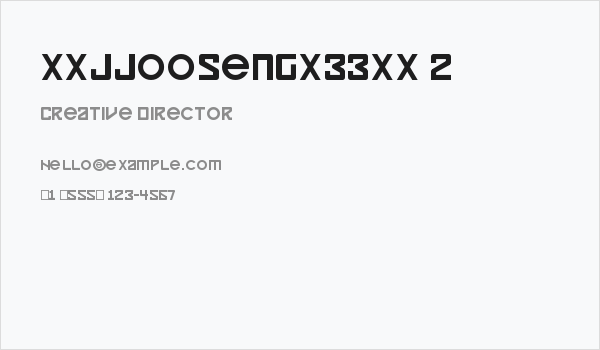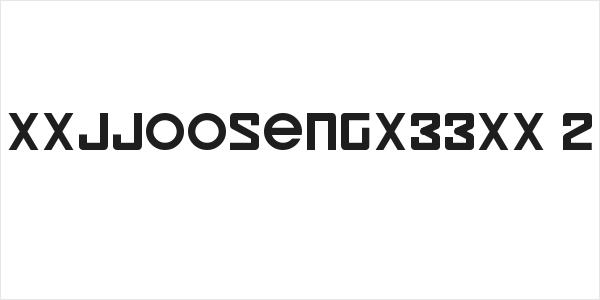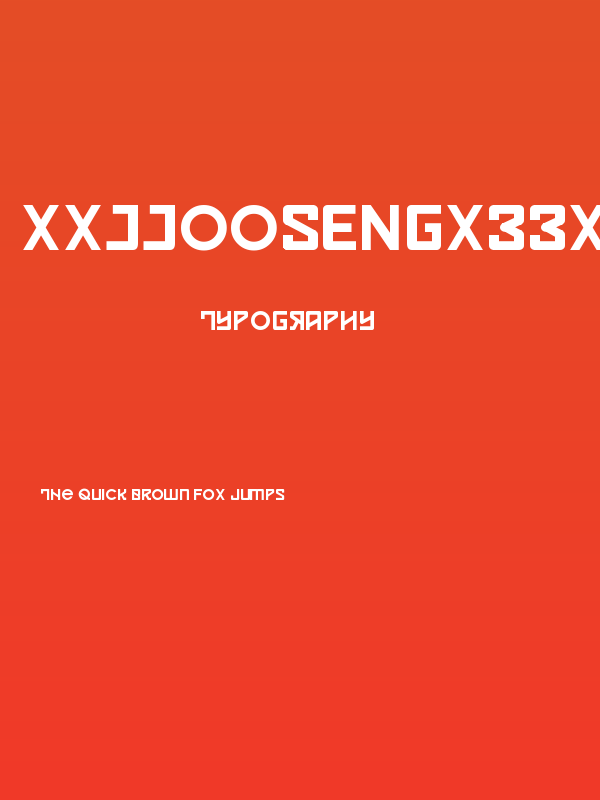
xxjjoosengx33xx 2 Font
xxjjoosengx33xx 2 Description
This font features a bold, geometric design with strong, angular lines and a futuristic aesthetic. The uppercase letters are distinct with sharp edges and a blocky appearance, creating a sense of strength and modernity. The lowercase letters maintain the same geometric style, ensuring consistency across the typeface. Numbers are equally bold and angular, making them highly legible and impactful. The overall design is reminiscent of digital or sci-fi themes, making it suitable for projects that require a modern and edgy look. The font's unique style is complemented by its uniform character width, adding to its structured and cohesive appearance.
| Proposed Projects | Ideal for tech-related branding, sci-fi movie posters, video game titles, and digital media. |